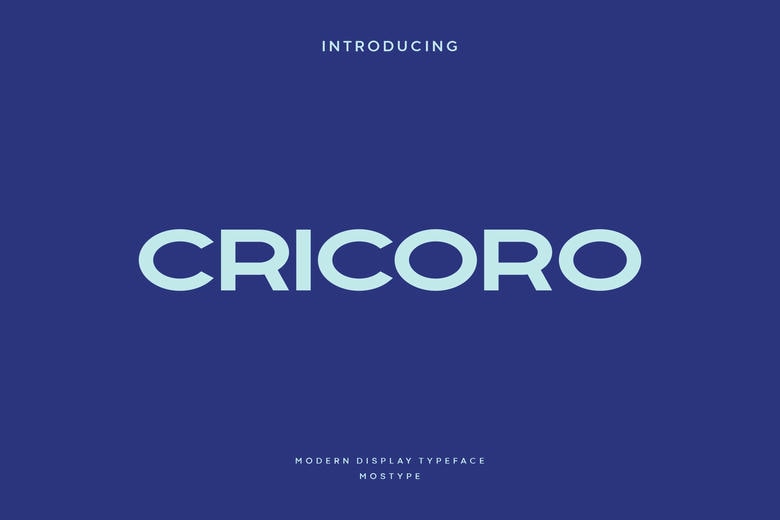
Cricoro is a display new generation typeface. This font was created with the vision of attracting the audience to your brand. The finest details of this typeface are methodically and mathematically created.
Cricoro is created with all the tasks of a corporate font and also for the use in a variety of projects, including branding products, logos, titles, headlines, posters, screens, display, digital ads, and everything else. We are putting a lot of effort into this font as a long-term project.
Cricoro Display Font